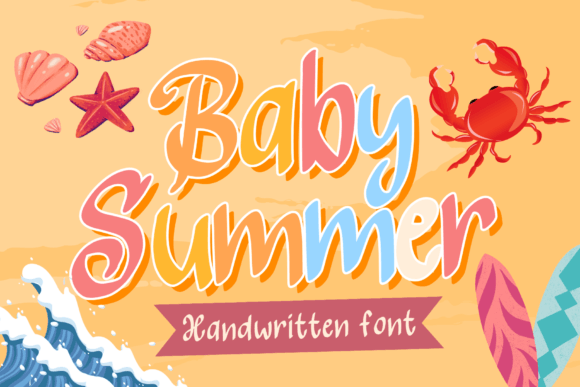
The Perfect Touch of Whimsy: Introducing Baby Summer Font
Have you ever been working on a design project, and suddenly, you just can’t seem to get the right vibe? Maybe you’ve tried a dozen different fonts, but nothing seems to capture the essence of your vision. That’s where the Baby Summer Font comes in – a charming handwritten font that embodies playfulness and authenticity.
This delightful font is perfect for adding a touch of whimsy to all your favorite projects, from blog posts and logos to branding, ads, invitations, and more. Whether you’re a seasoned designer or just starting out, the Baby Summer Font is a valuable addition to your toolkit. Its versatility and charm make it an ideal choice for designers looking to add a personal touch to their work.
Baby Summer Font Key Features
- Unique Characteristics: Baby Summer Font features a playful, handwritten style with a mix of cursive and script elements, making it perfect for adding a touch of whimsy to designs.
- Font Style: This font comes in two styles: Regular and Bold, allowing for a range of design options.
Baby Summer Font Review
I recently had the chance to work with the “Baby Summer Font” and I’m excited to share my thoughts on it. Overall, I think it’s a sweet addition to any design project.
- Playful and whimsical feel: Baby Summer Font has a charming, childlike quality that’s perfect for creating a carefree atmosphere.
- Legibility: The font is clear and easy to read, even at smaller sizes.
- Customization options: Baby Summer Font comes with a range of styles and weights, giving you plenty of flexibility to suit your design needs.
- Limited sophistication: While the font is great for playful projects, it may not be the best choice for more serious or professional designs.
- No bold variations: Some users may find the lack of bold variations limiting, especially for headings or titles.
- May not be suitable for small text: Baby Summer Font’s playful nature can make it difficult to read at very small sizes.
I think Baby Summer Font is a great choice for designers looking to add a touch of whimsy to their projects. While it may have some limitations, its playful feel and customization options make it a valuable addition to any design toolkit.
For best results, use the font in combination with bright and pastel colors to create a playful and whimsical design.
Use the font in combination with hand-drawn elements and watercolor textures to create a unique and artistic design.
Use the font to create eye-catching headings and titles, and pair it with a clean and simple body font for easy reading.
The Baby Summer Font is perfect for creating playful and whimsical designs, such as:
Children’s party invitations and decorations
Summer-themed graphics and illustrations
Baby shower invitations and decorations
Use the font in combination with bright colors and playful graphics to create a fun and festive atmosphere.
Alternatives to Baby Summer Font
Great Vibes is a beautiful, elegant script font perfect for creating a warm and inviting atmosphere. It’s ideal for wedding invitations, quotes, and other creative projects. Great Vibes is more refined and sophisticated compared to Baby Summer Font, making it a better choice for formal and upscale designs.
Pacifico is a modern, sans-serif script font that exudes a sense of calmness and serenity. It’s perfect for creating a peaceful and soothing ambiance, making it ideal for travel and wellness-related projects. Pacifico is more minimalist and clean compared to Baby Summer Font, making it a better choice for simple and elegant designs.
Carolyna Pro is a stylish, modern script font that’s perfect for creating a luxurious and sophisticated atmosphere. It’s ideal for high-end fashion, beauty, and lifestyle projects. Carolyna Pro is more dramatic and eye-catching compared to Baby Summer Font, making it a better choice for attention-grabbing designs.
The recommended font size for optimal readability with the Baby Summer Font is between 12pt and 18pt, depending on the intended use and design context. This range provides a clear and legible reading experience.
Q: Is the Baby Summer Font compatible with right-to-left languages?
Yes, the Baby Summer Font is designed to be compatible with right-to-left languages, including Arabic, Hebrew, and others. However, please note that additional font features or adjustments may be required for optimal display and layout in these languages.